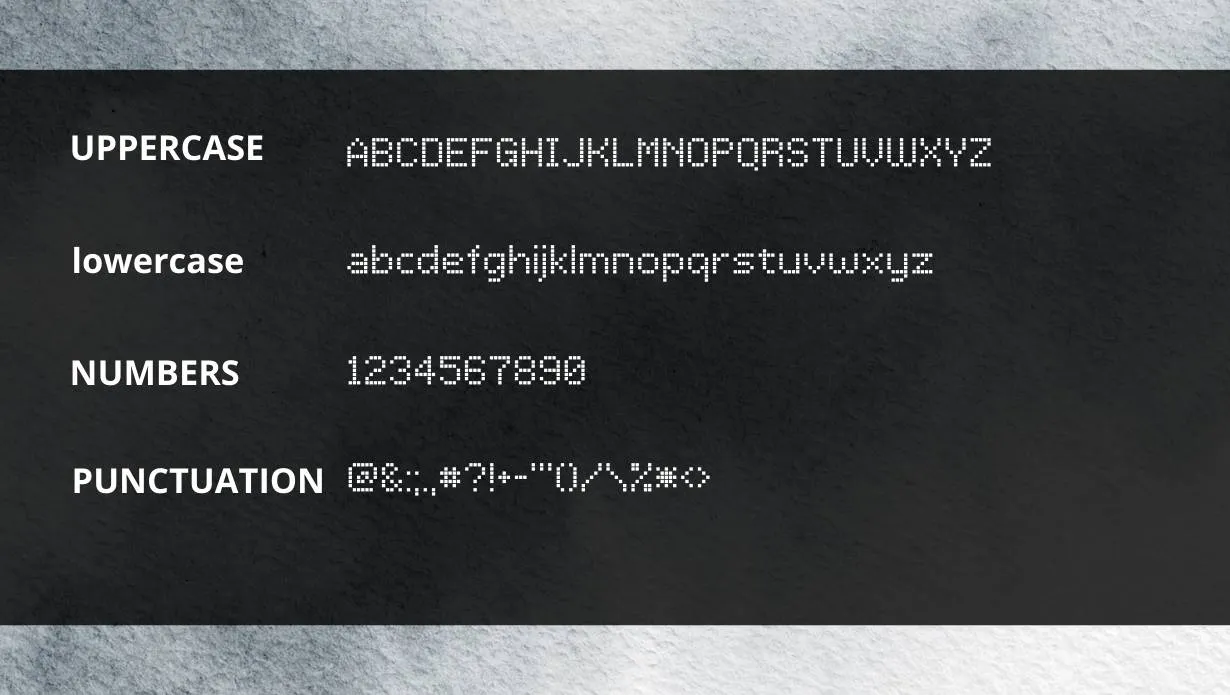
Lcd Dot Font is a retro typeface created by Japanese graphic designer Shigeo Goto in 1999. It was inspired by the work of Swiss typographer Hermann Zapf, specifically his Optima typeface.
The typeface is also matched with other pixelated typefaces and has a matching personality with vcr osd mono font , you can make brand new designing stuff with mix these two typefaces as well.
View of Lcd Dot Font
| Name | Lcd Dot Font |
| Designer | Shigeo Goto |
| Style | Retro |